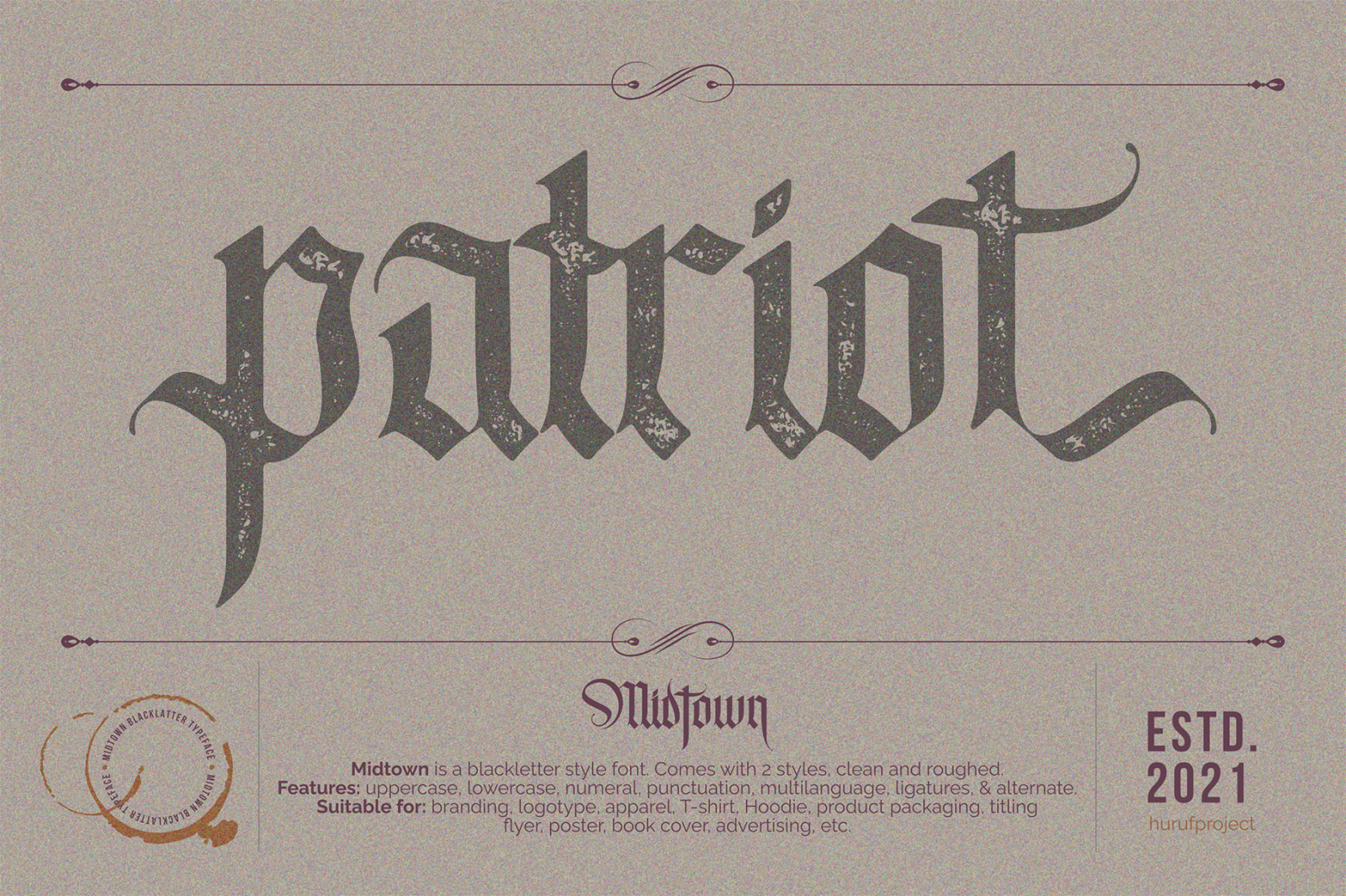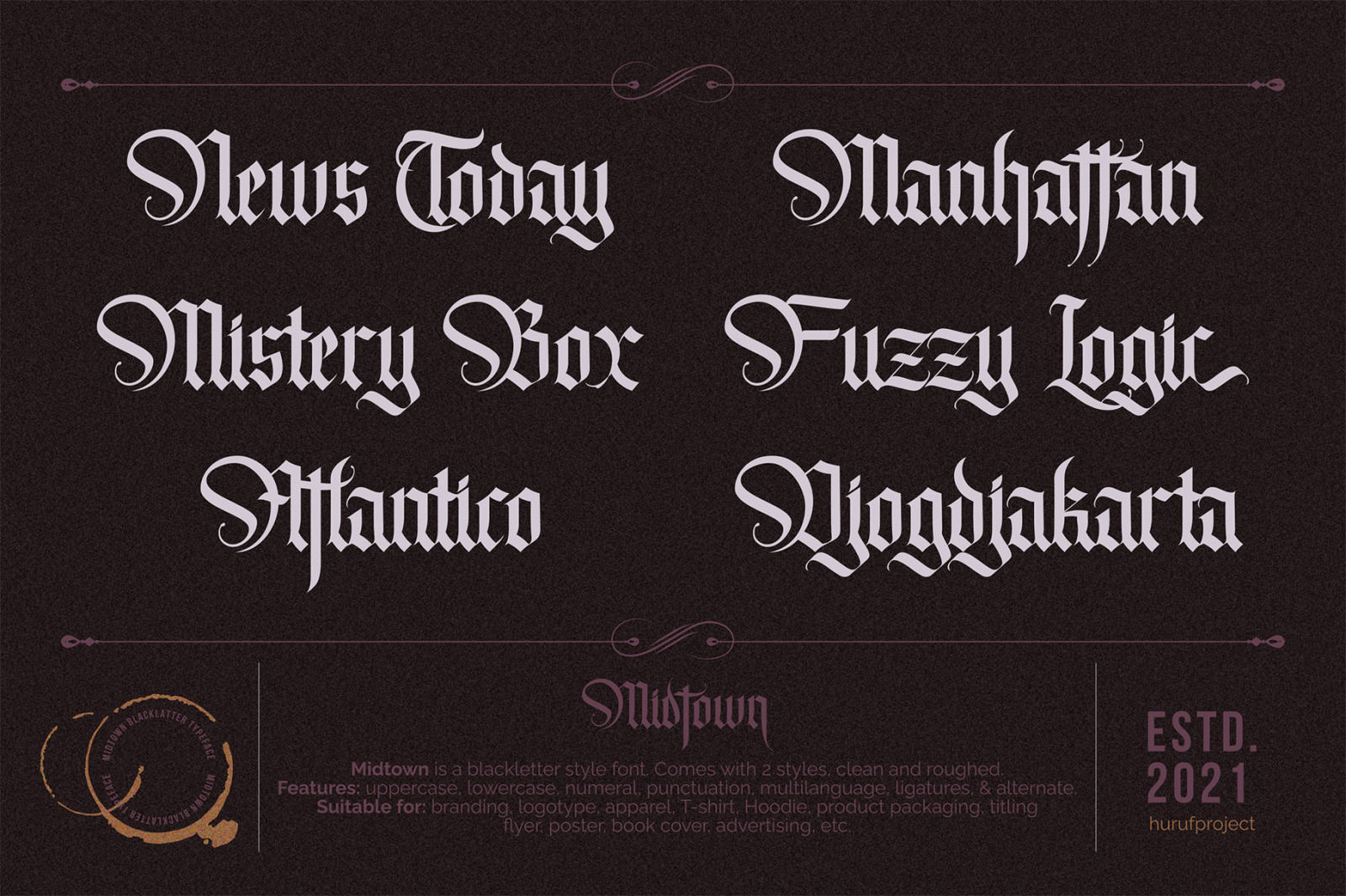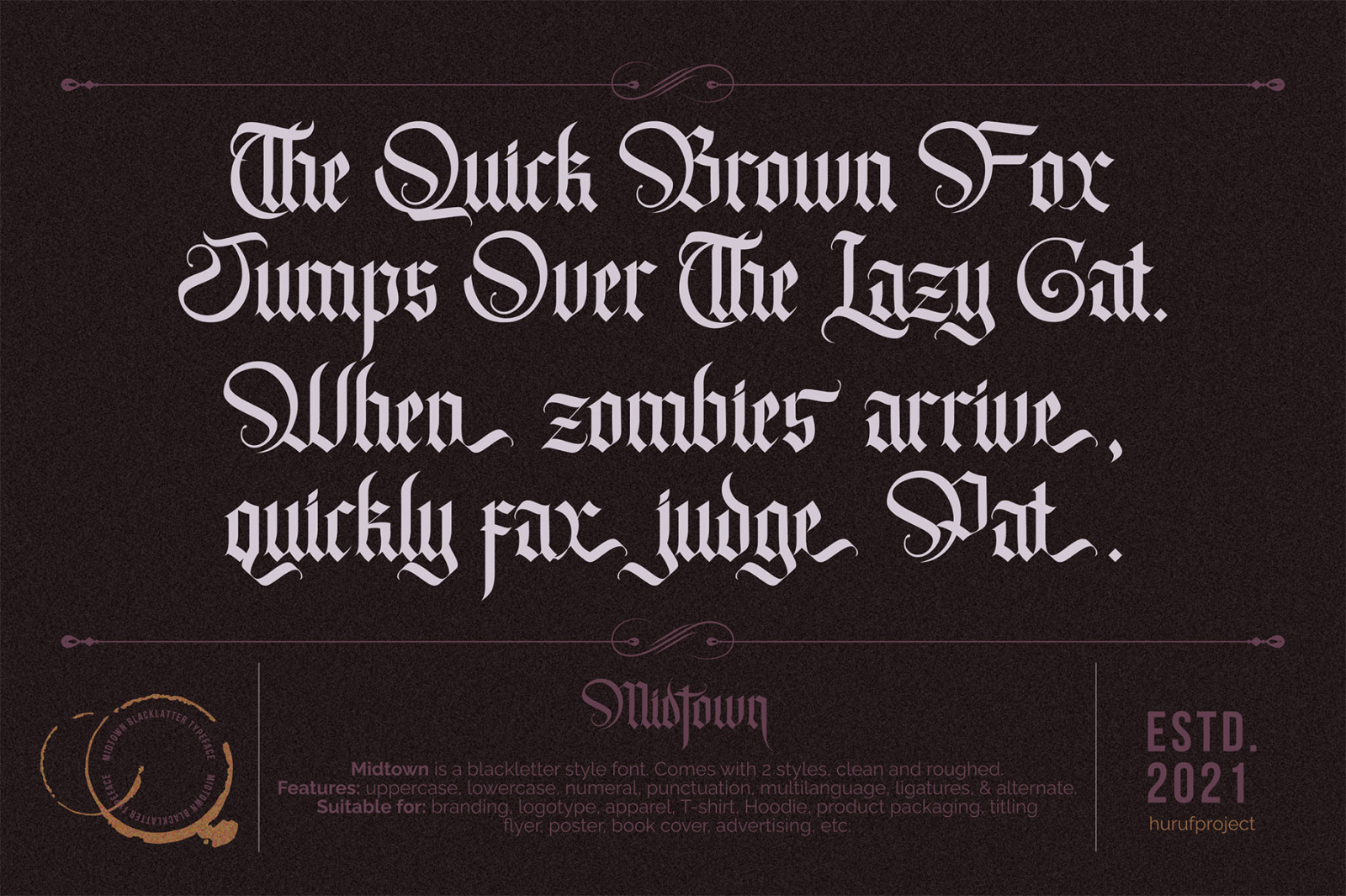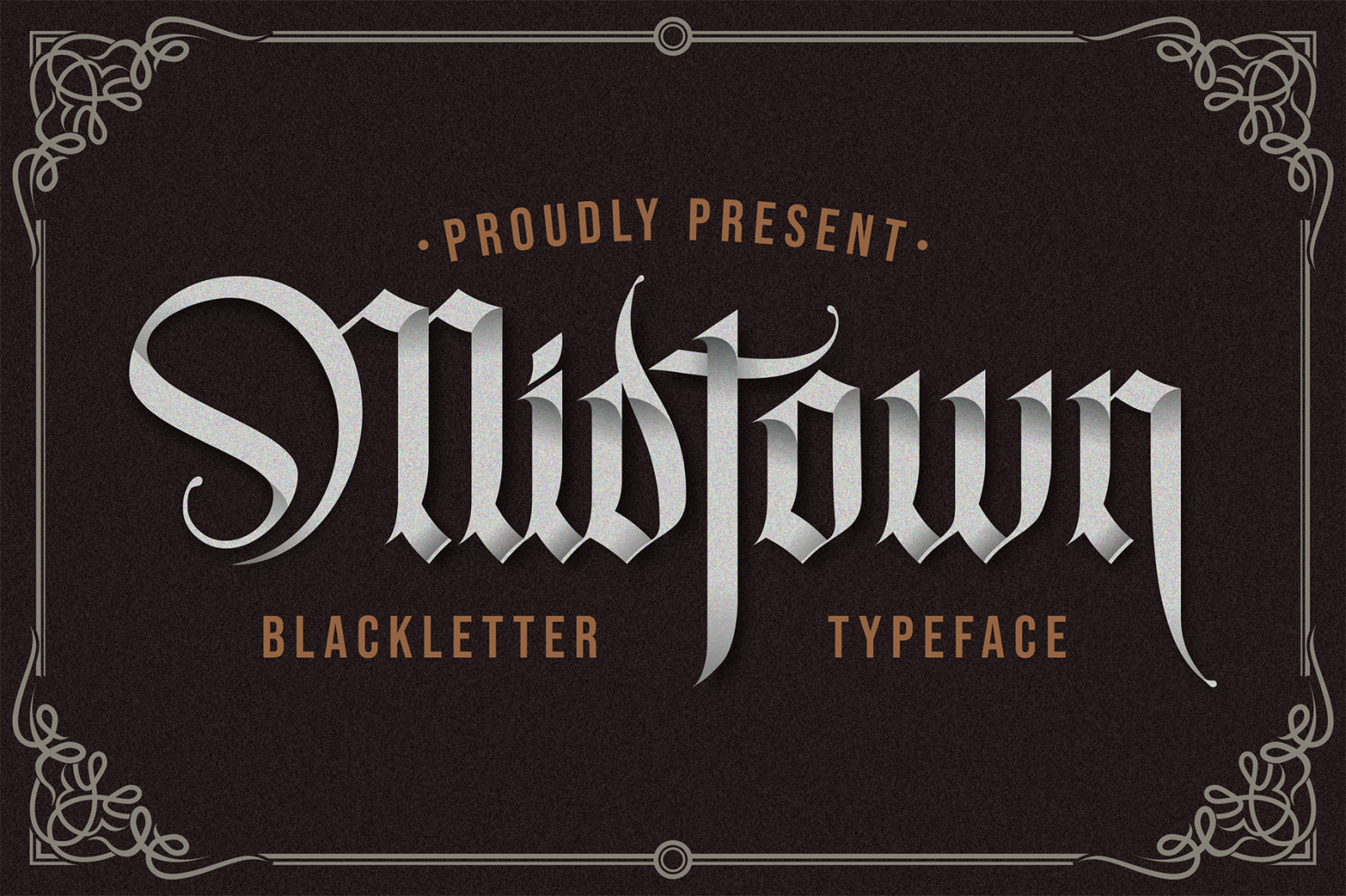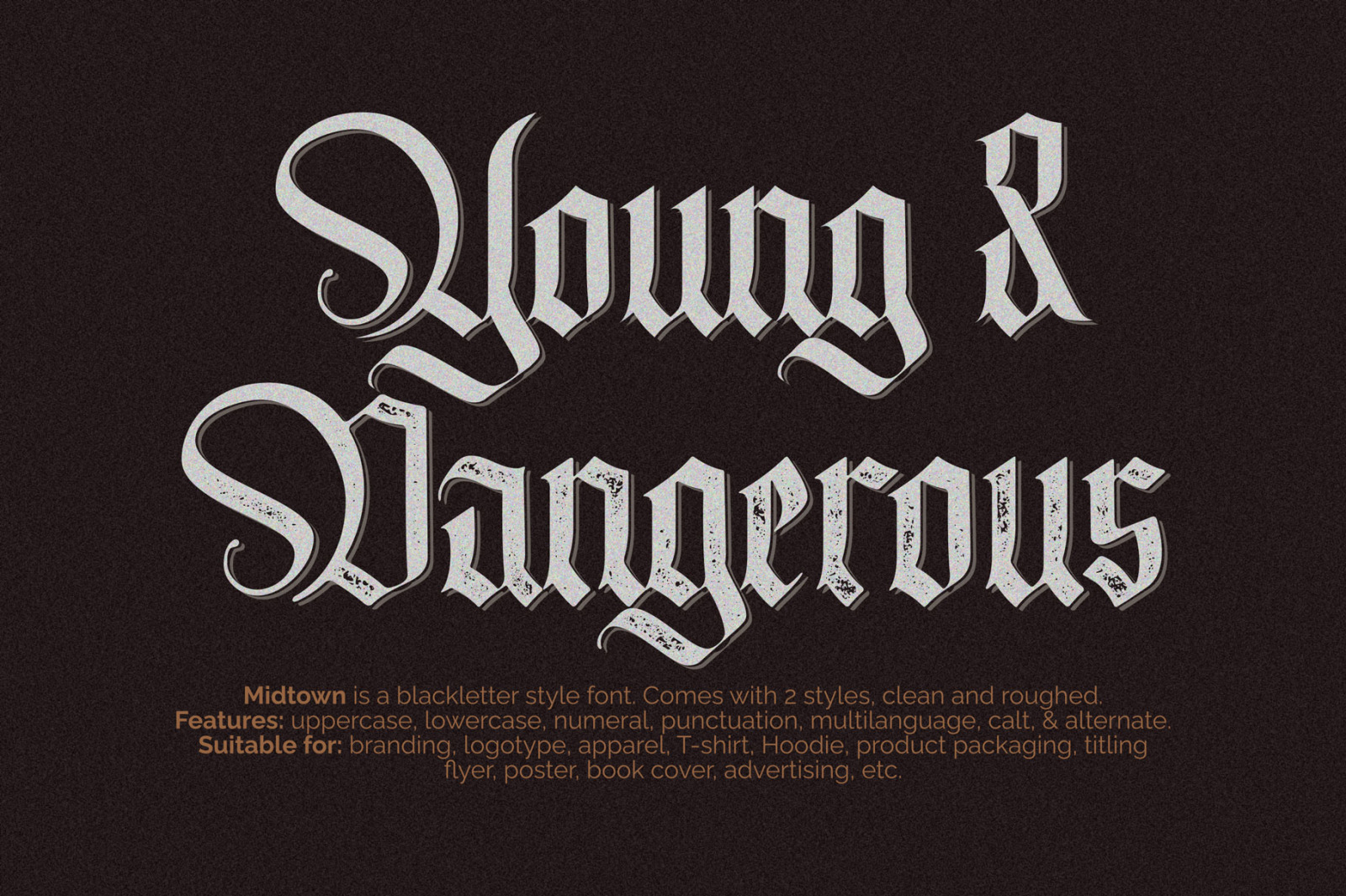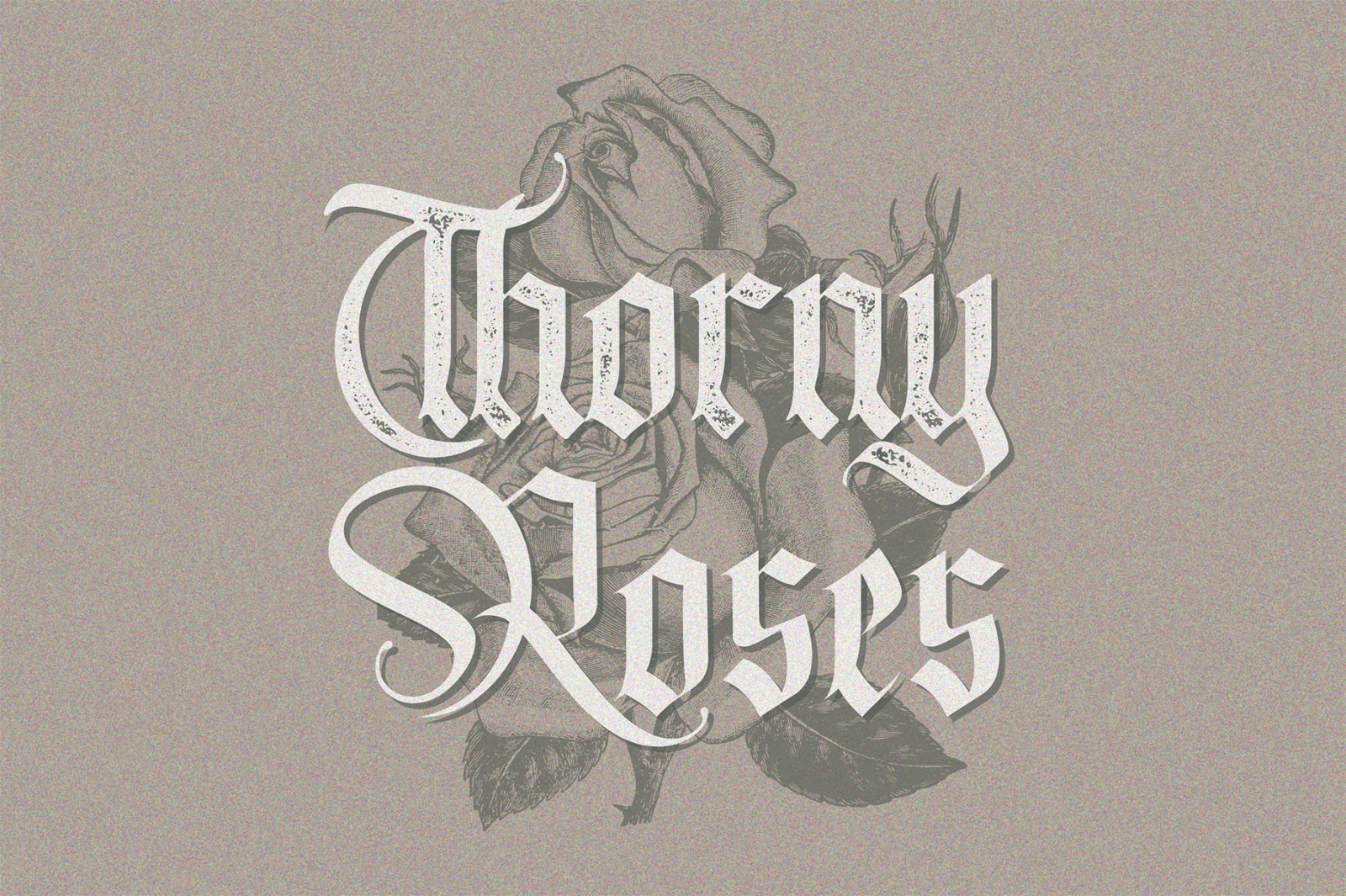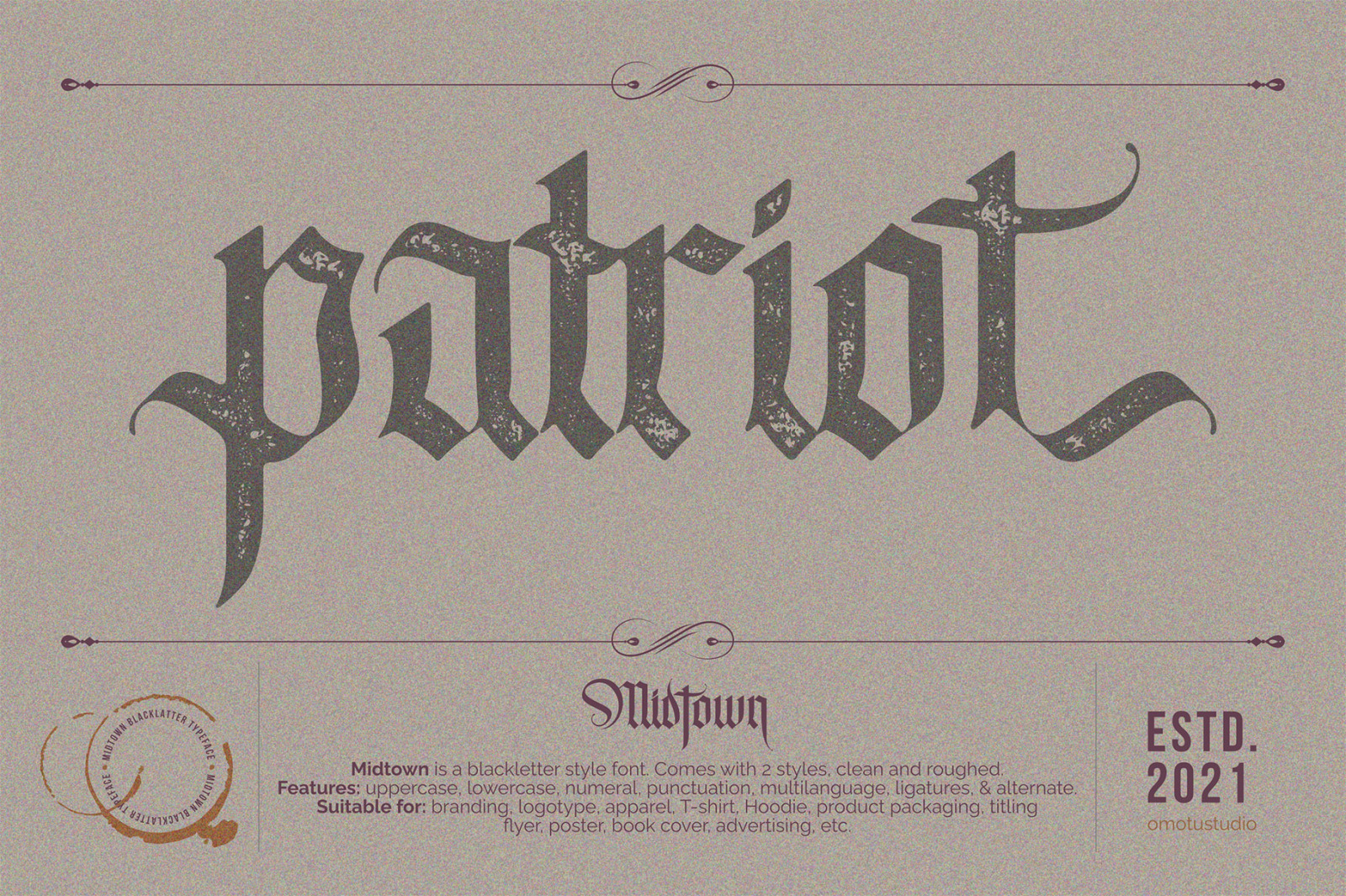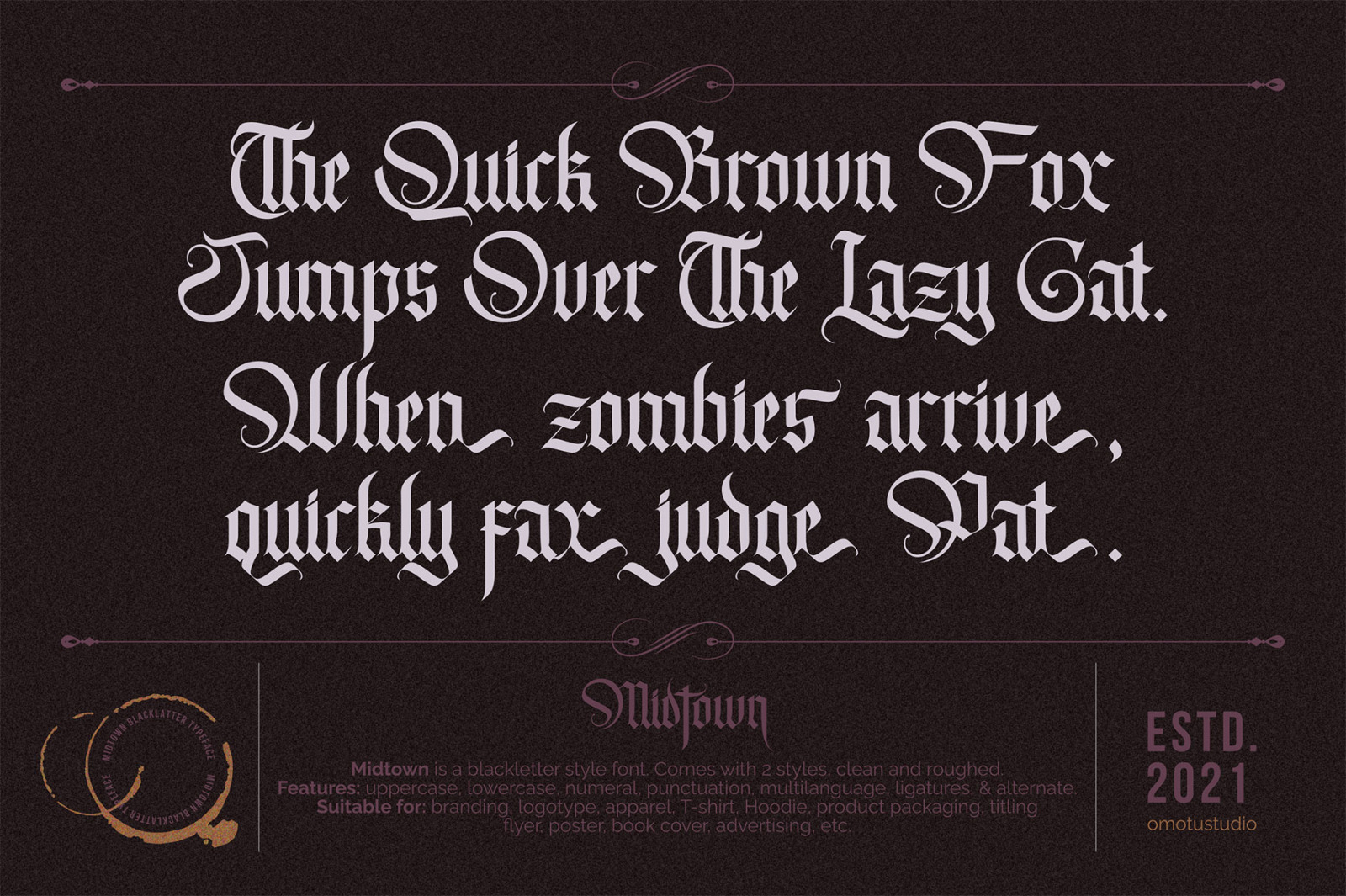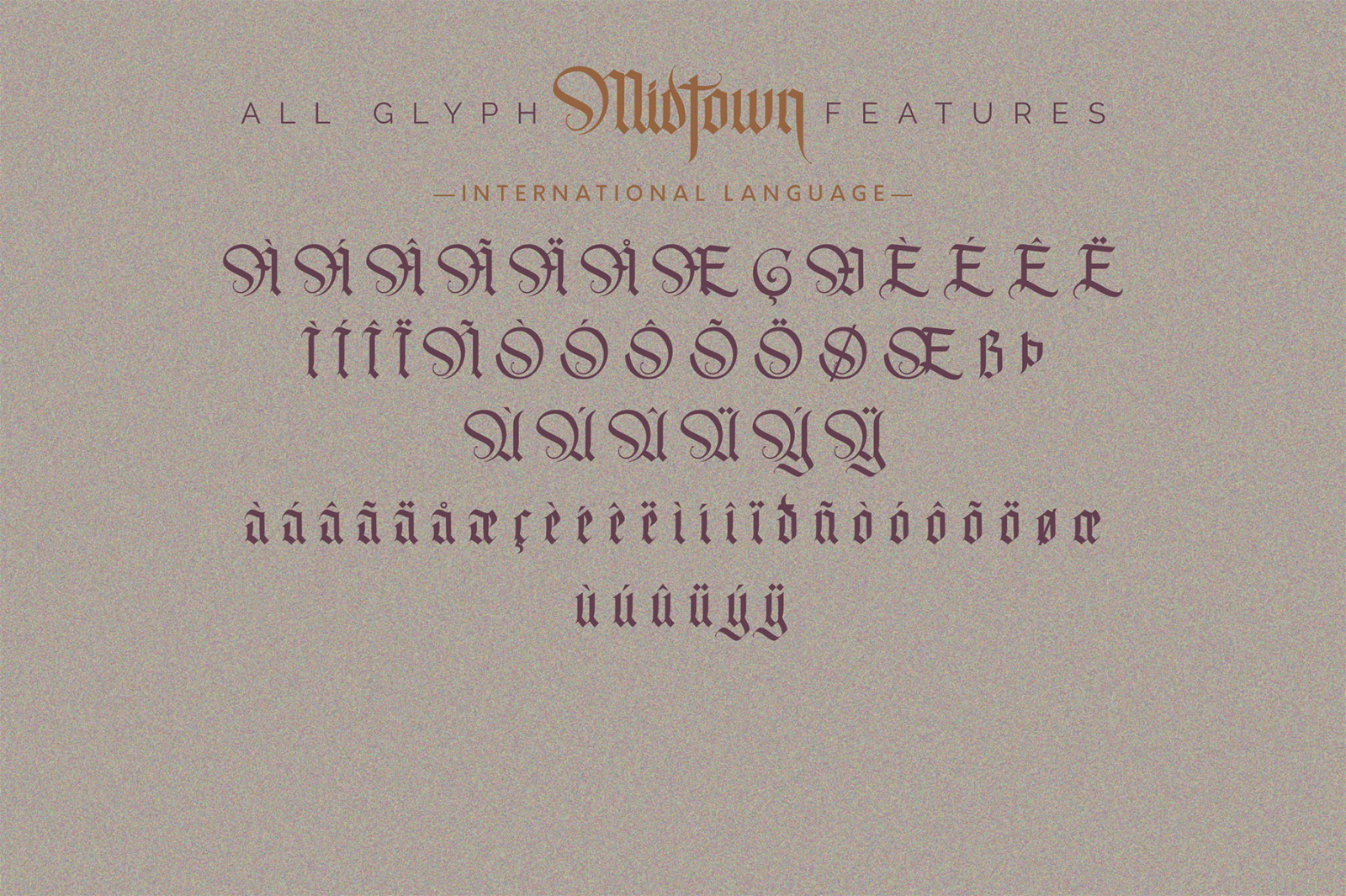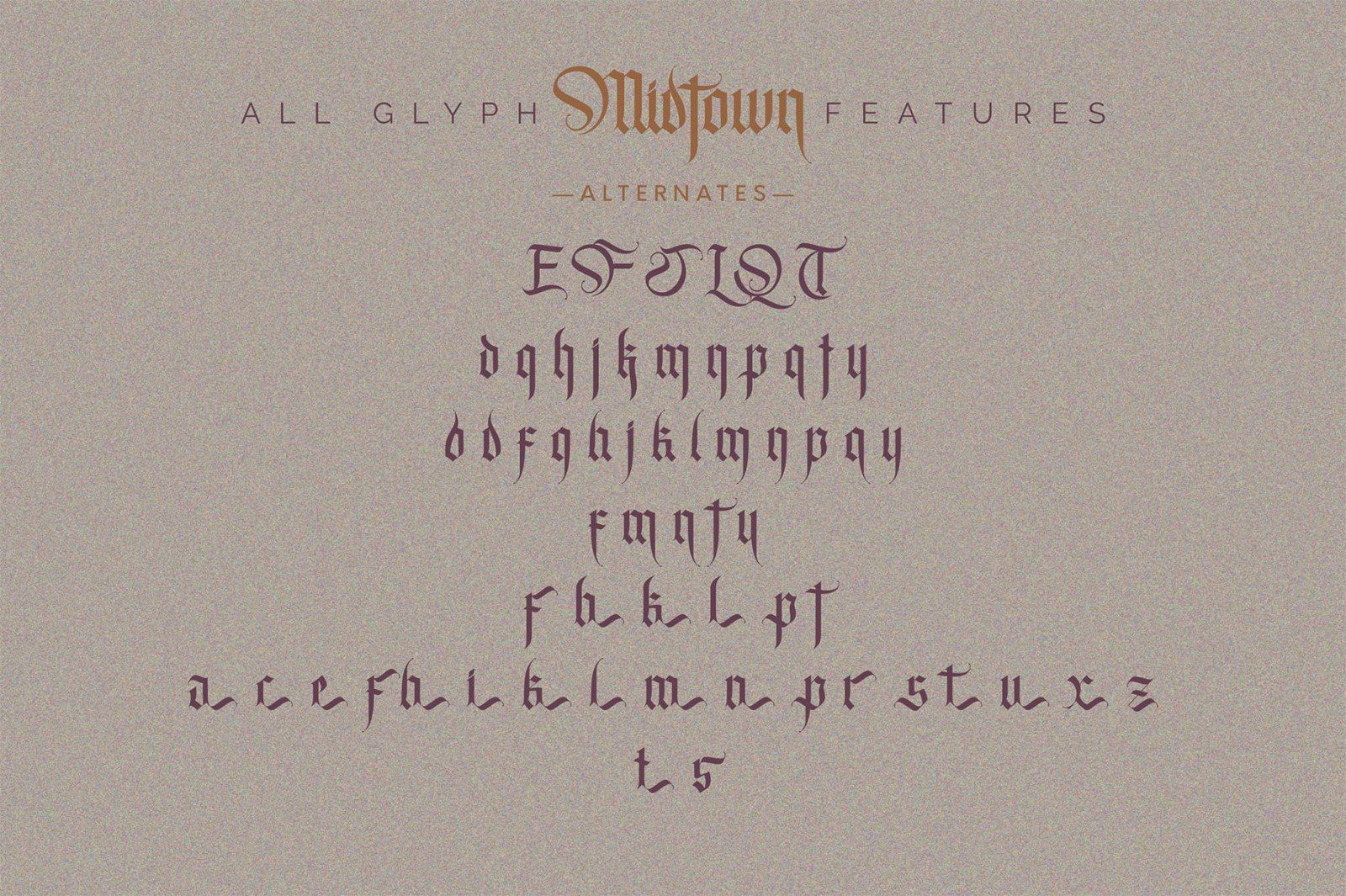
Midtown | Balckletter Font
Midtown! A blackletter font with 2 styles, regular and roughed. Midtown font is perfect for logos, apparel, T-shirt, Hoodie, product packaging, or anything else.
2. Multilingual support
4. Features: uppercase, lowercase, numeral, punctuation, multilanguage, alternates, stylist set.